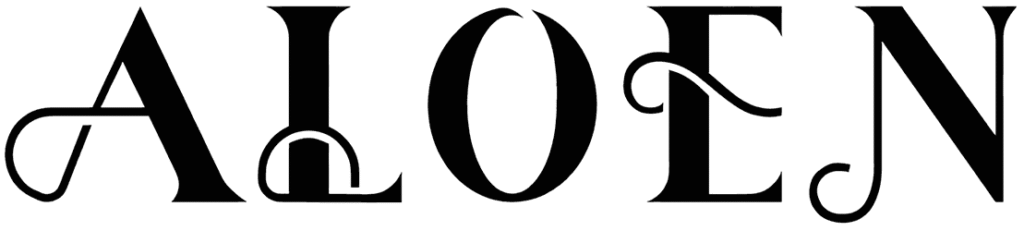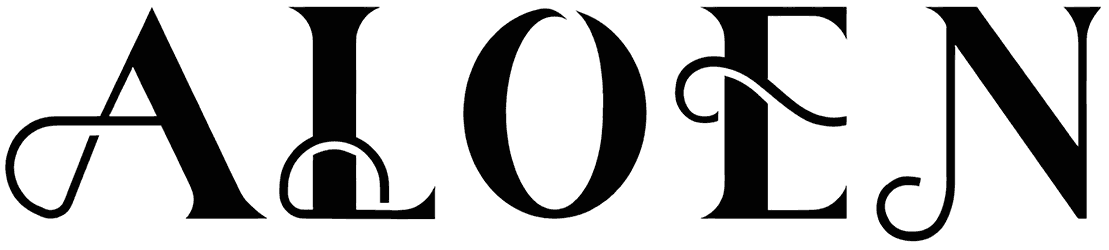
Aloen Font
A font like Aloen might come in handy if you’re in charge of a project with a friendly tone. This curvy font works well in both digital and print media. Use this elegant, curvy font for your next film, tattoo, or love letter. Among our online collection of basic fonts, you may find a wide variety of tools for your next project. Our selection offers you a plethora of alternatives.